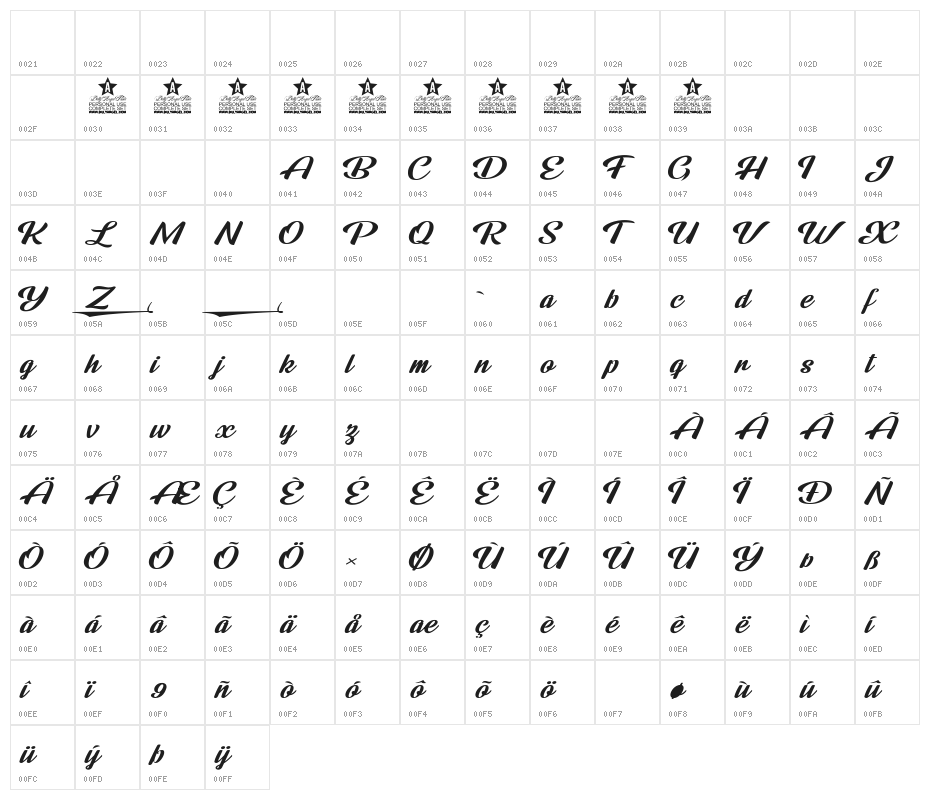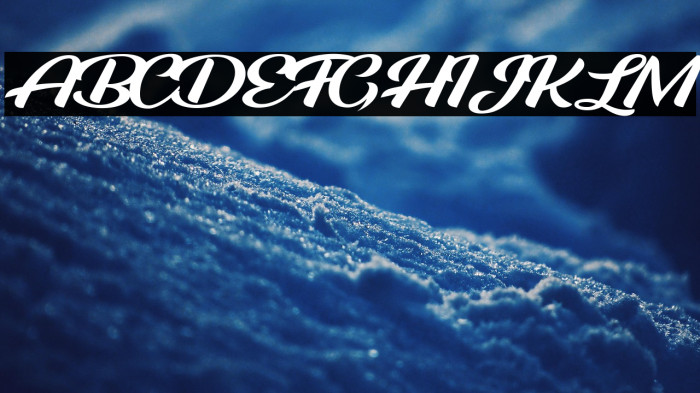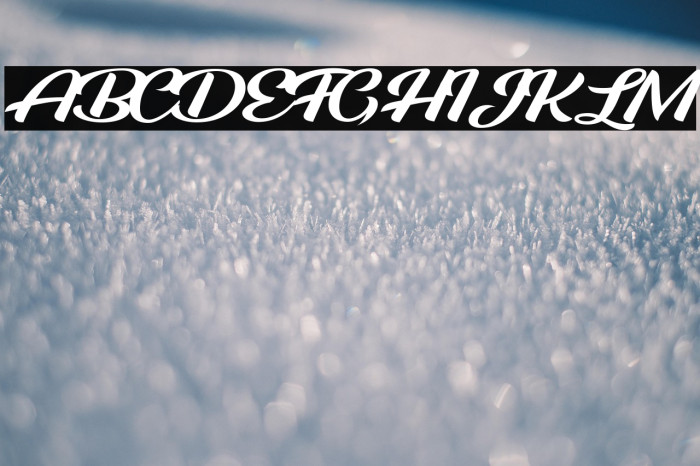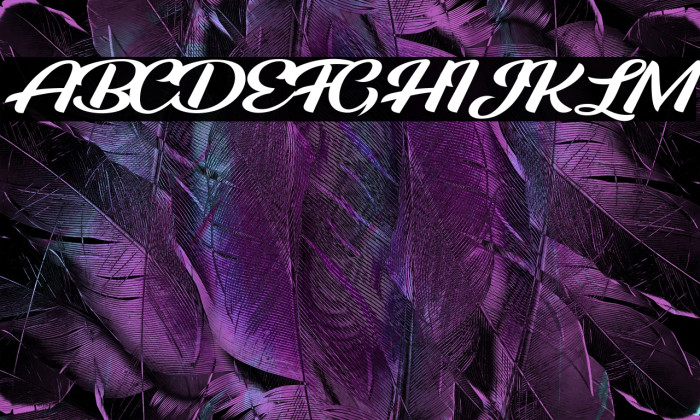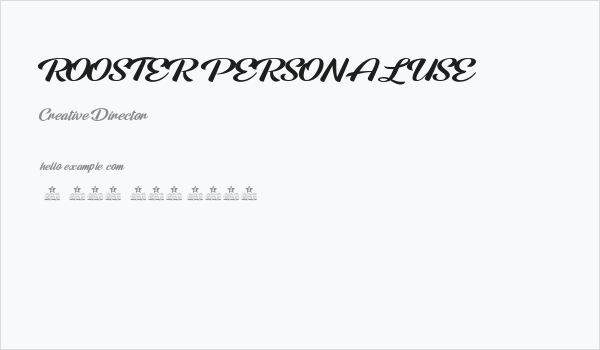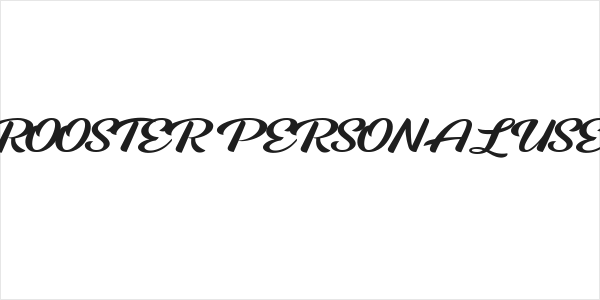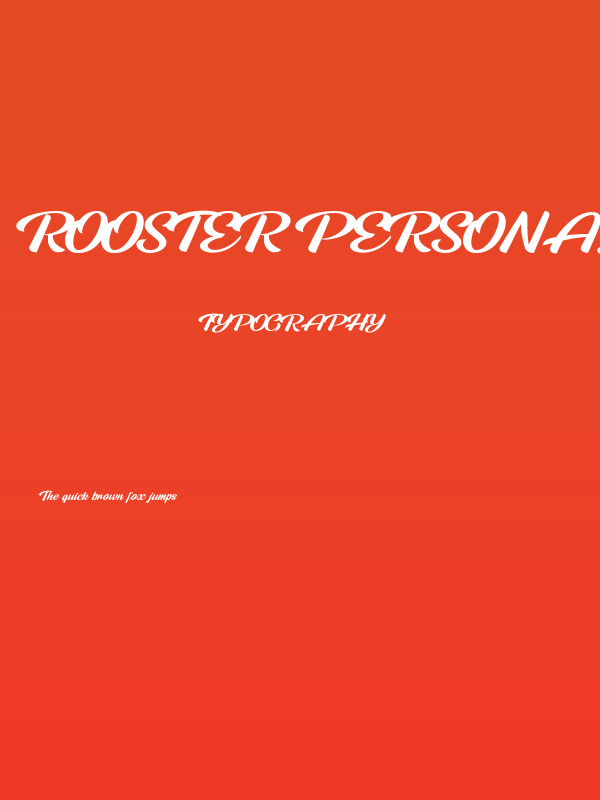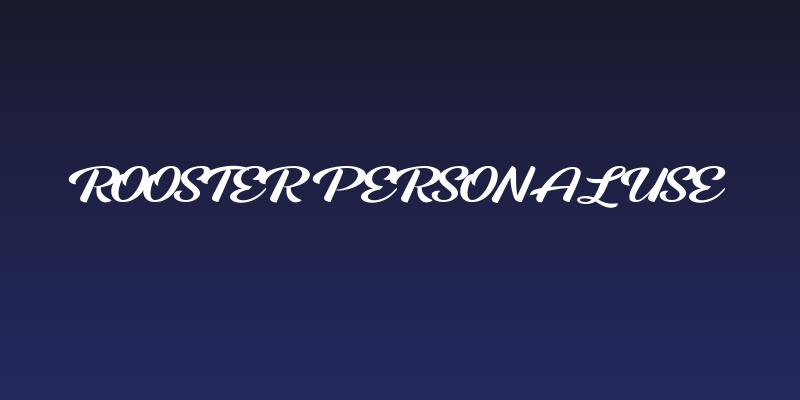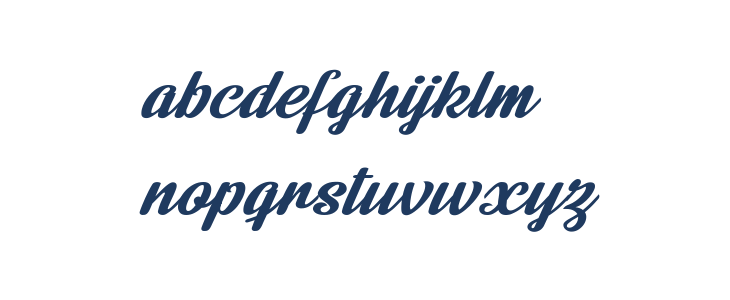
ROOSTER PERSONAL USE Font
ROOSTER PERSONAL USE Description
This font features a bold and flowing script style, characterized by its elegant and cursive letterforms. The uppercase letters are particularly ornate, with sweeping curves and a sense of movement that adds a dynamic quality to the text. The lowercase letters maintain a consistent style, offering a harmonious blend with the uppercase. The font's design is reminiscent of classic calligraphy, making it suitable for projects that require a touch of sophistication and flair. Its bold weight ensures strong visibility, while the italic nature of the characters adds a graceful touch. The spacing between characters is relatively tight, enhancing the cohesive appearance of the text.